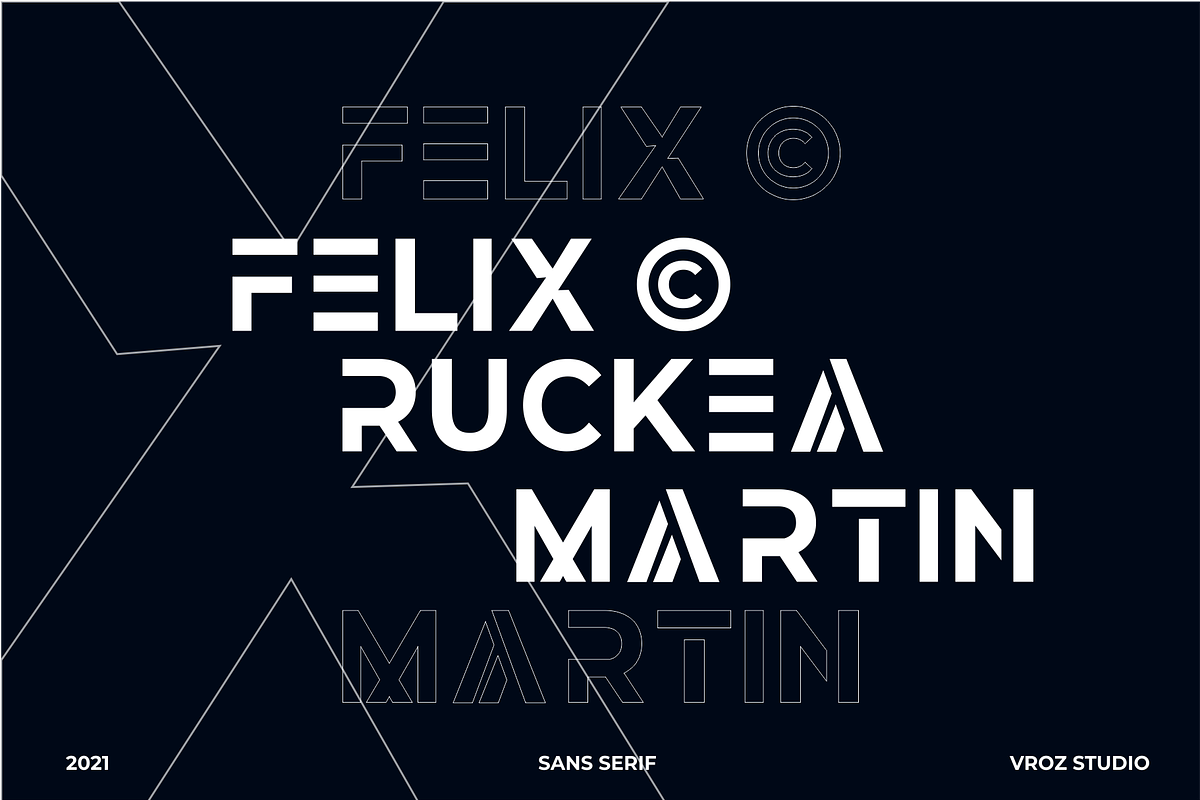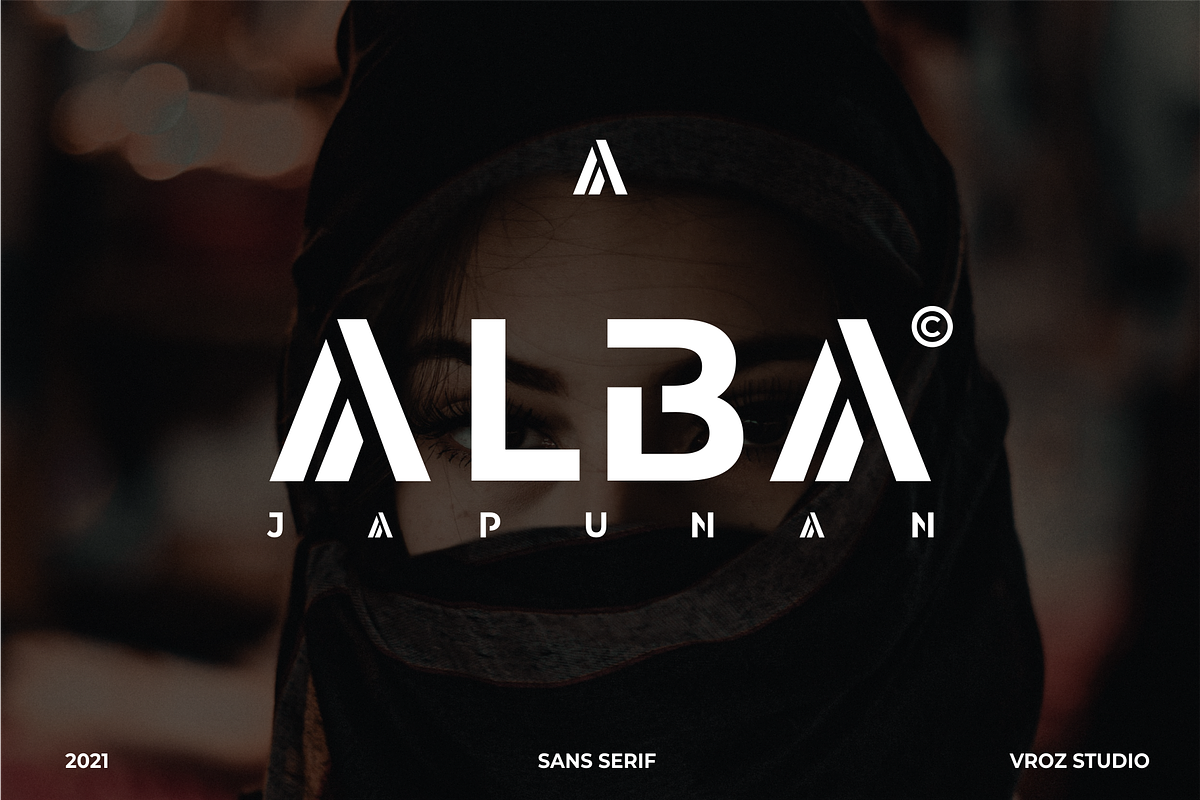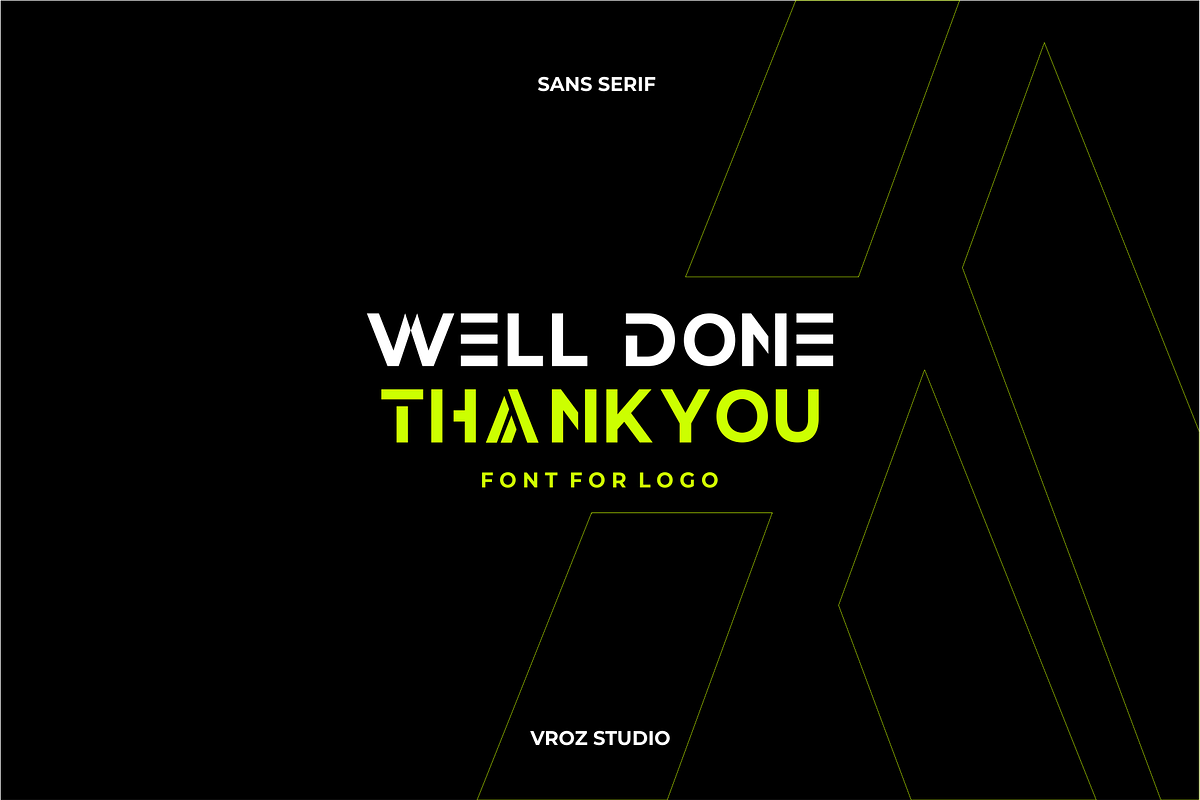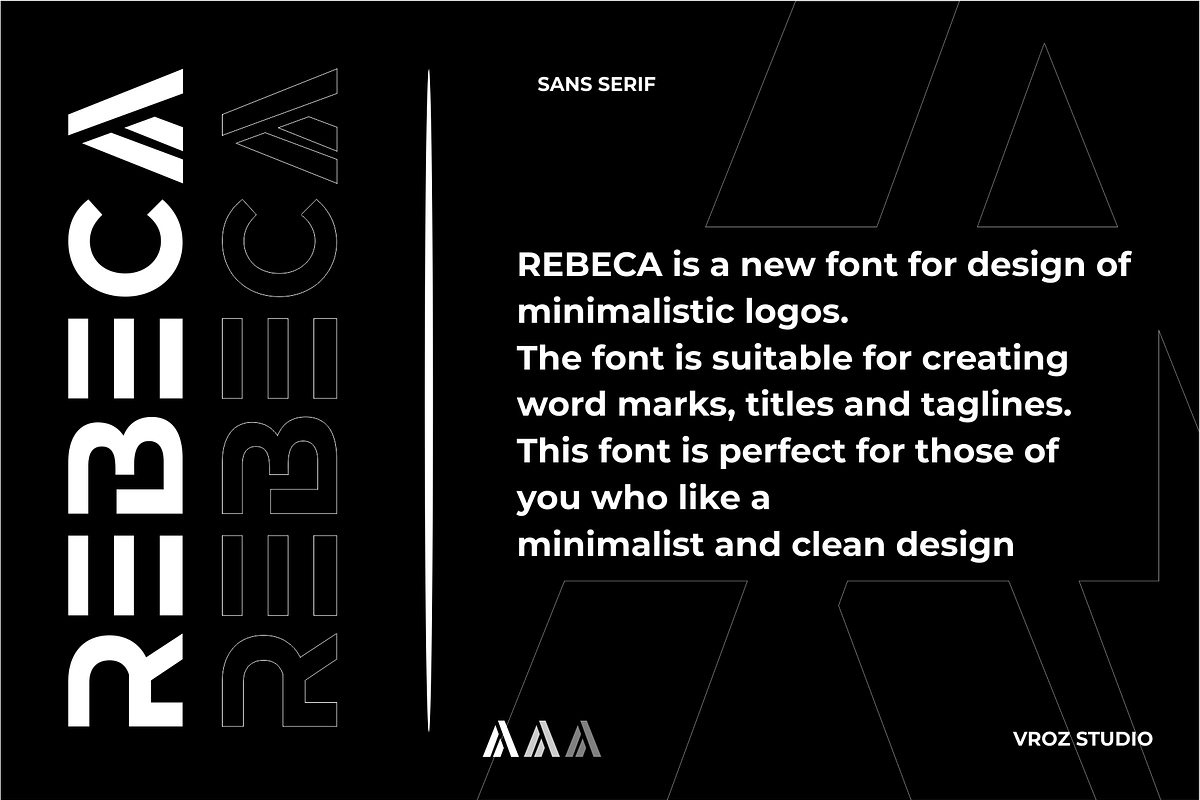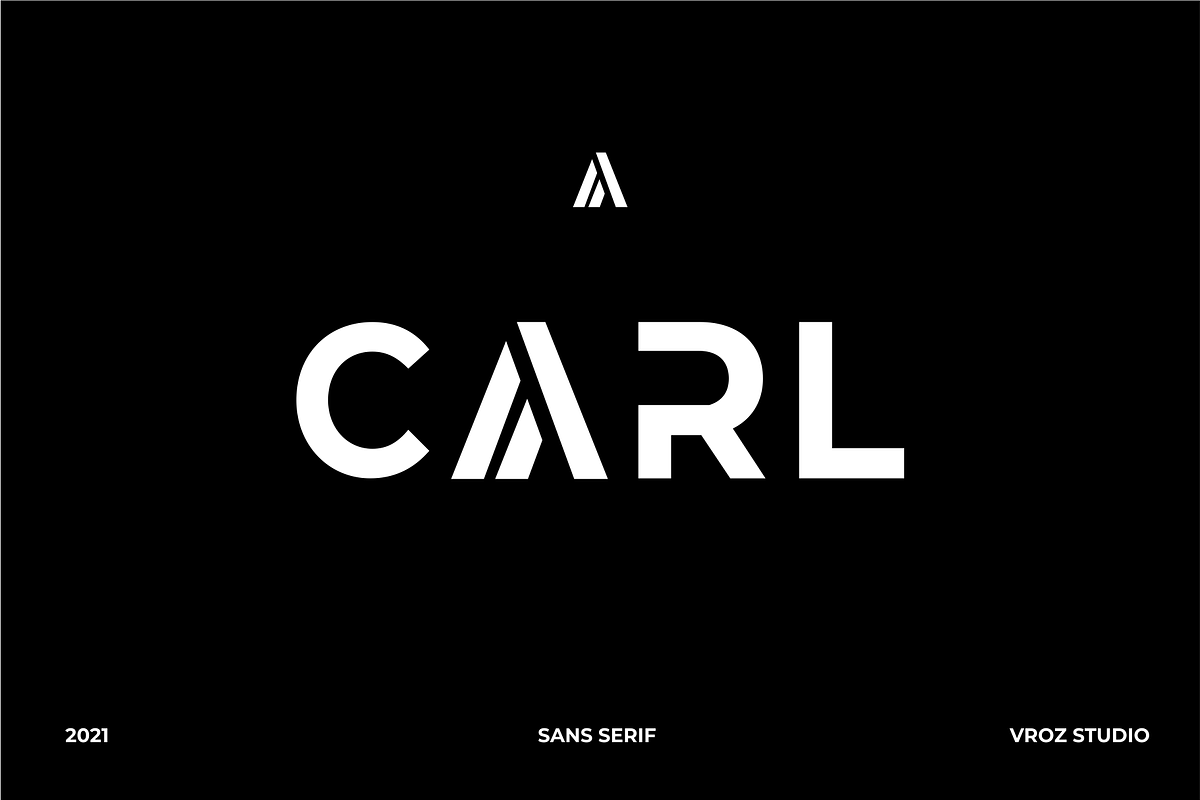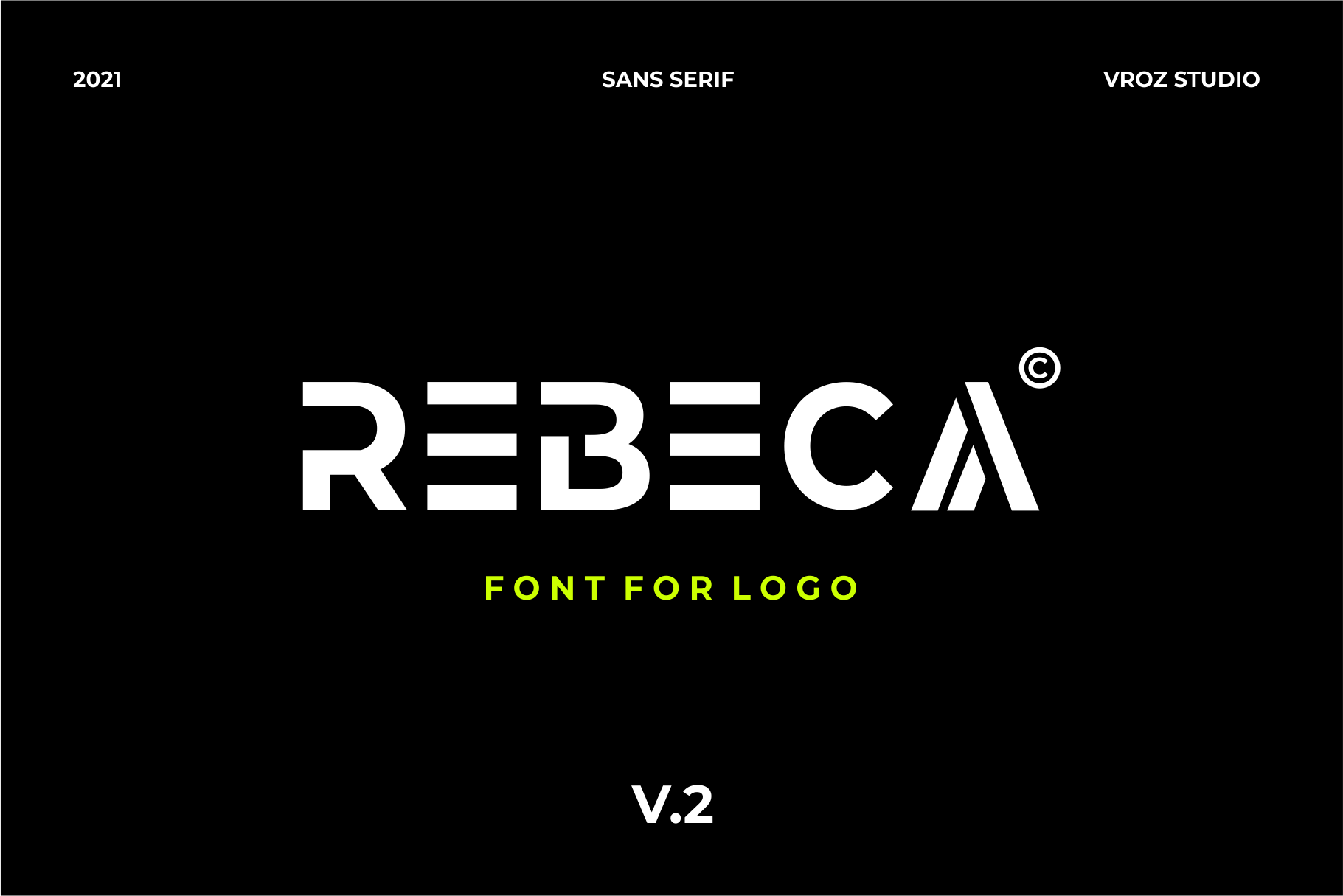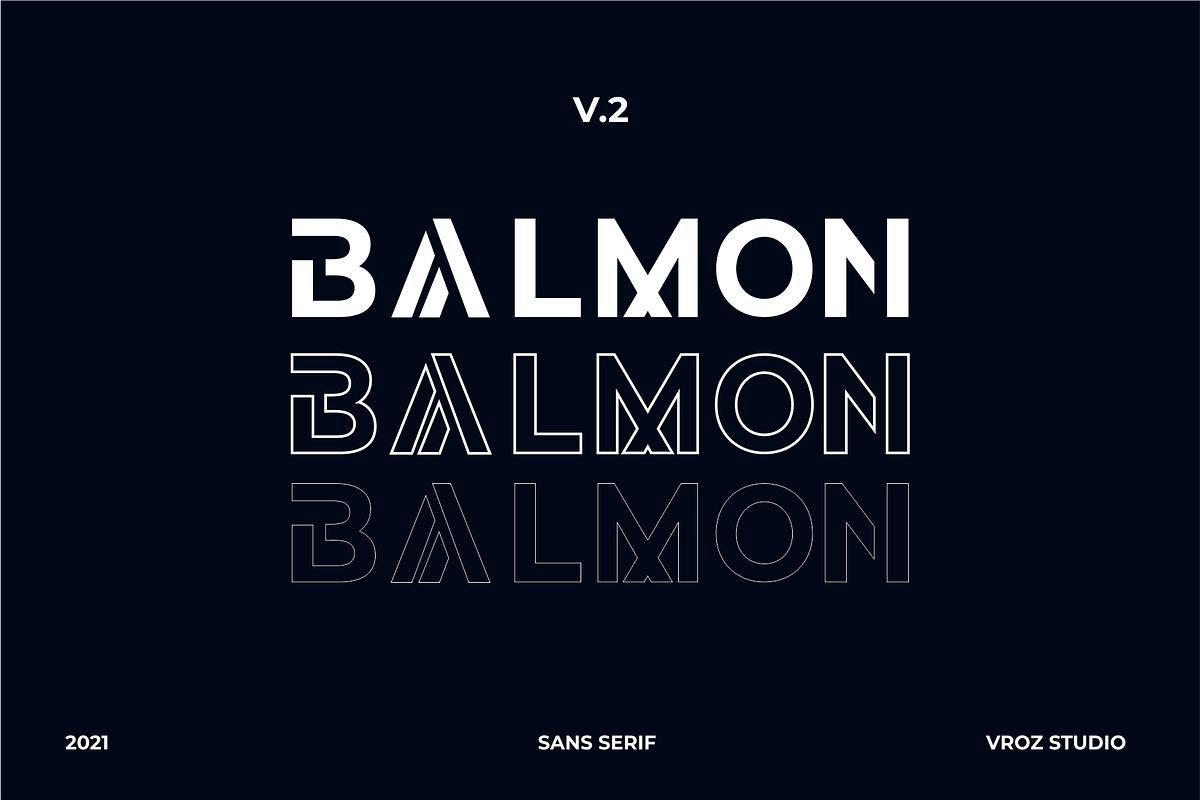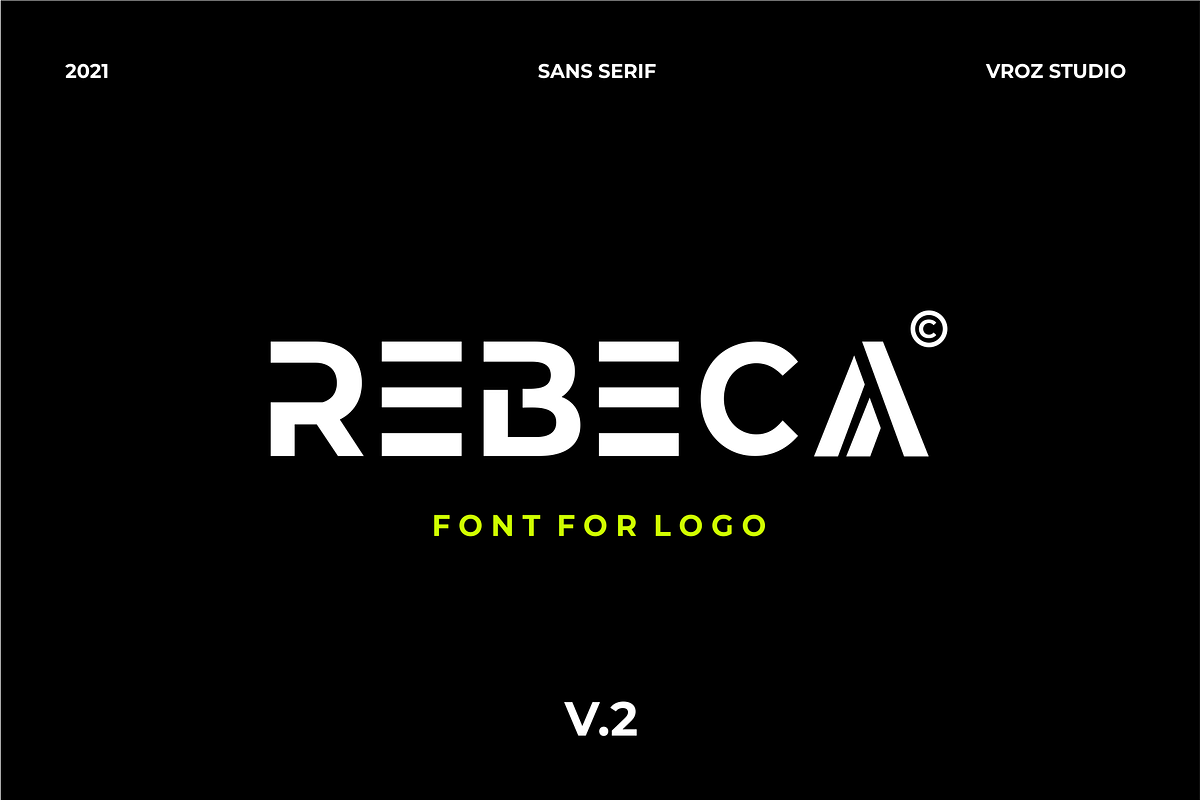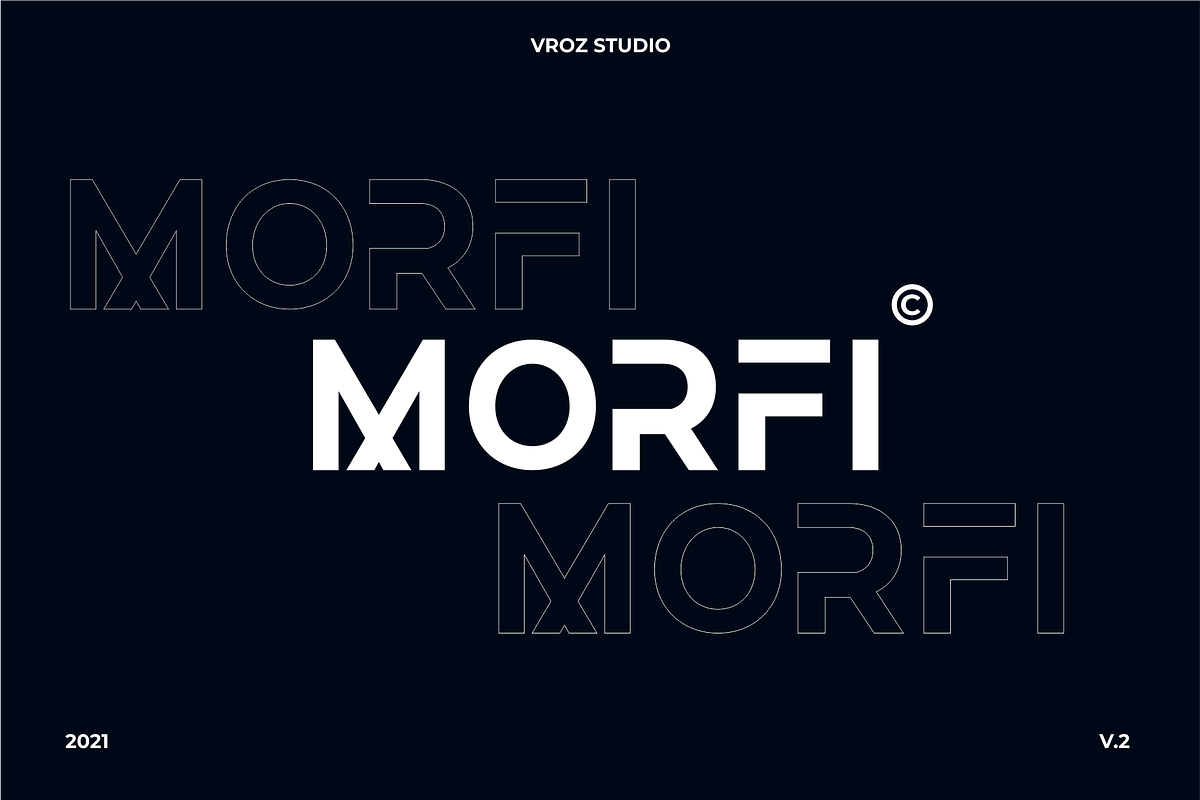
REBECA Logo Font | Logo & Branding
REBECA is a new font for design of minimalistic font for logos. The font is suitable for creating word marks, titles, taglines. This font is perfect for those of you who like a minimalist and clean design